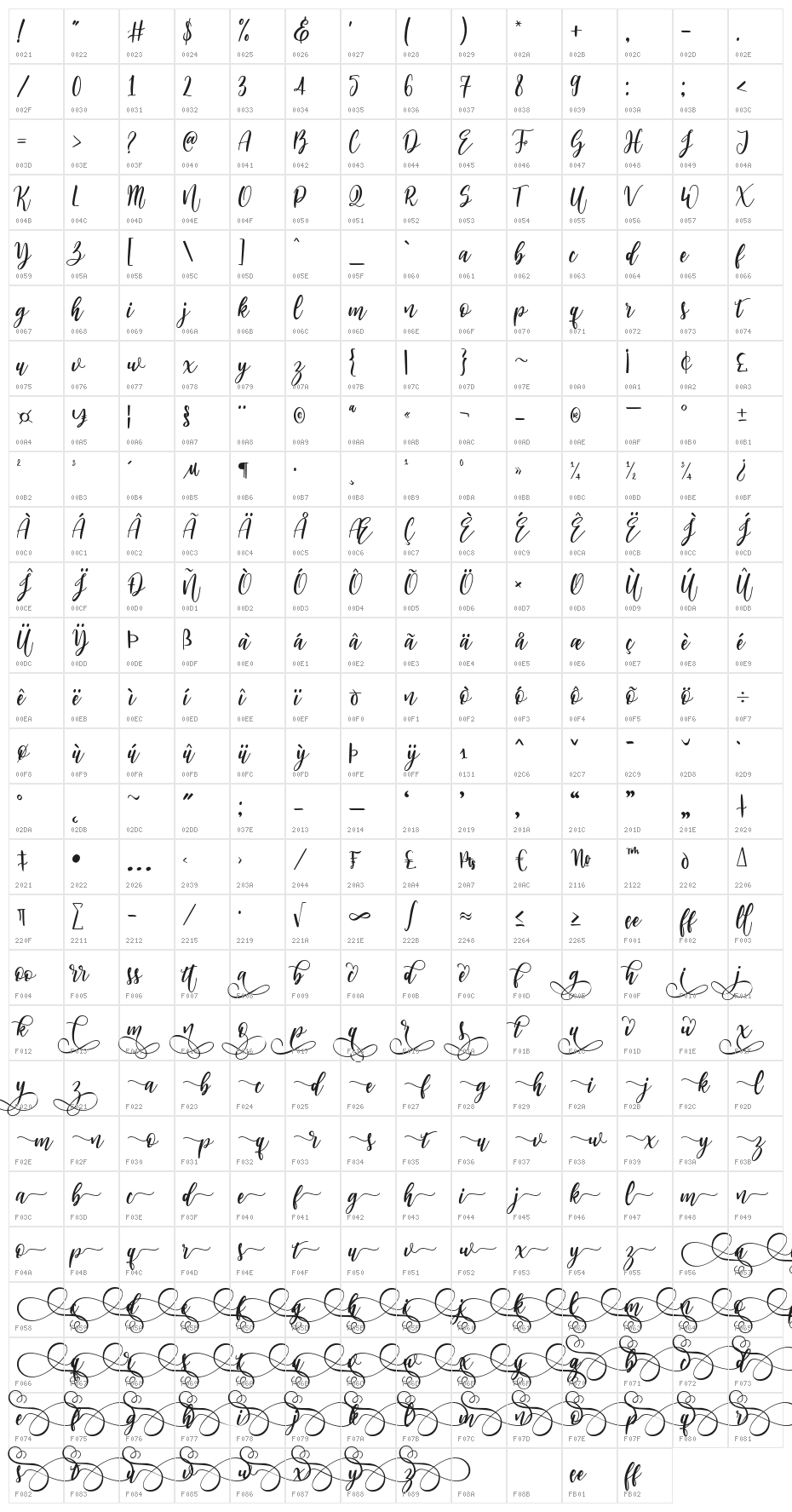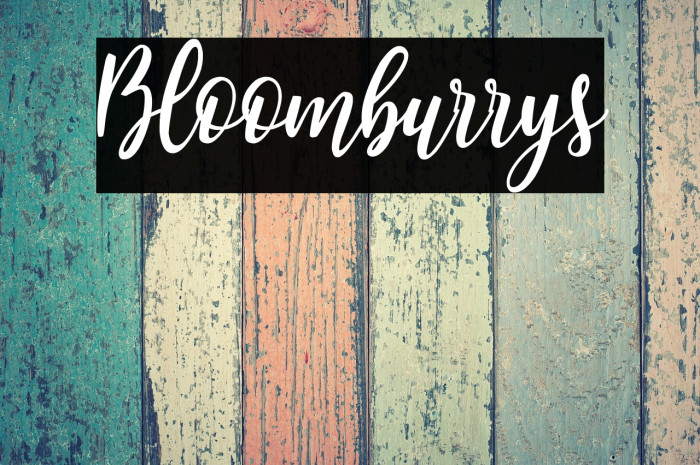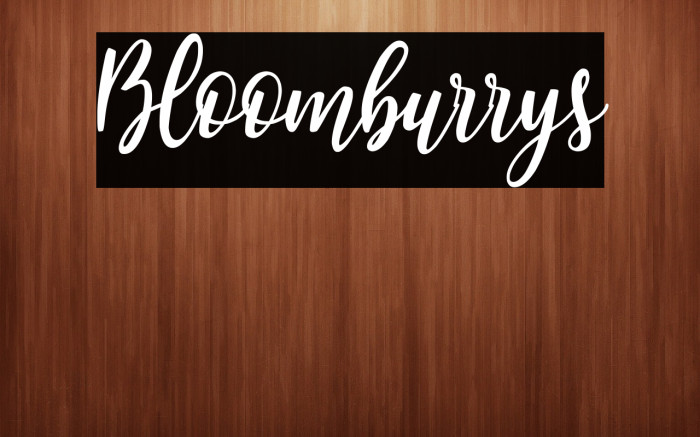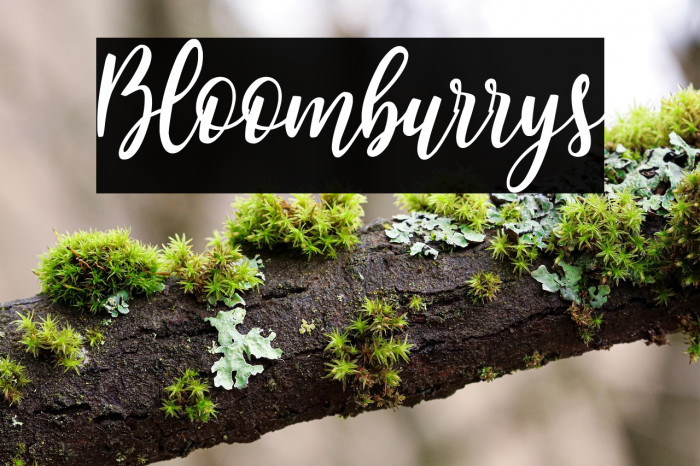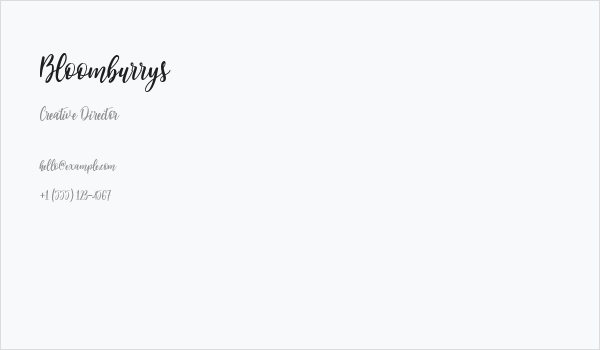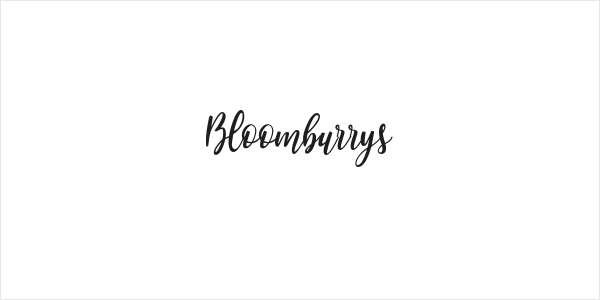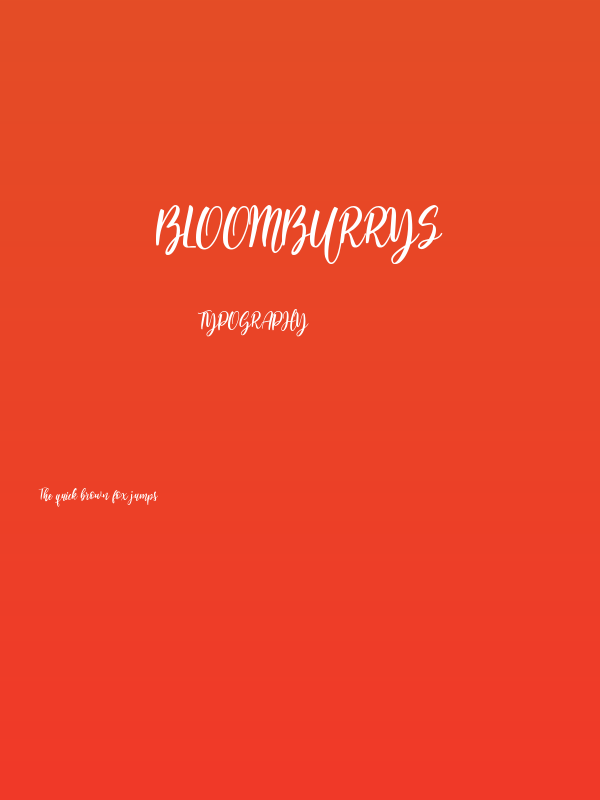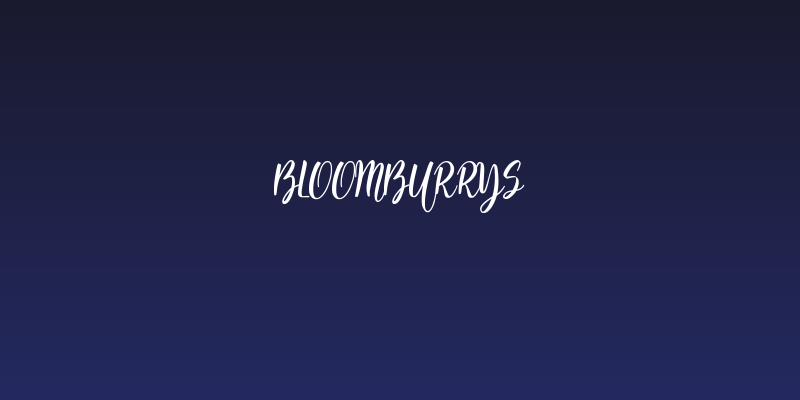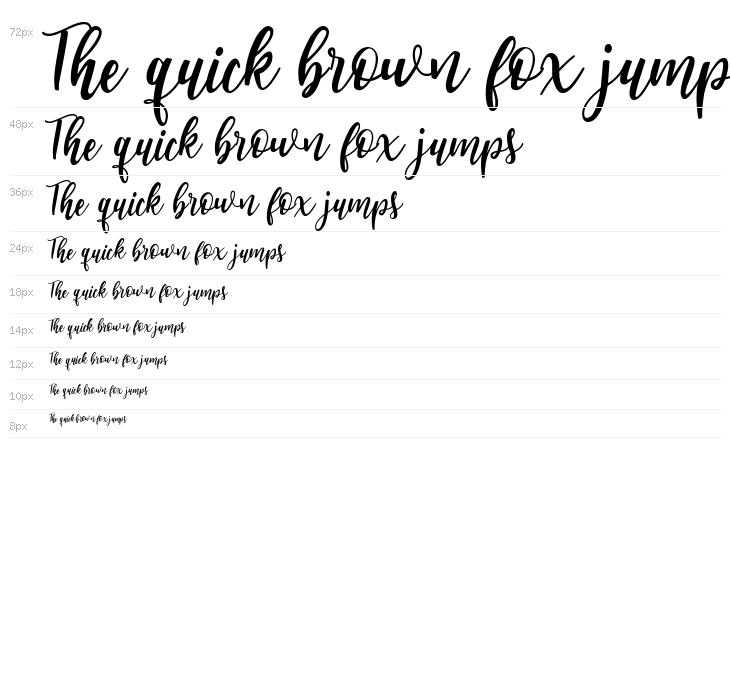
Bloomburrys Font
Bloomburrys Description
This font features a flowing, cursive style with elegant, sweeping strokes that give it a handwritten appearance. The letters are connected, creating a seamless and fluid look. The uppercase letters are bold and prominent, while the lowercase letters maintain a consistent flow, enhancing readability. The numerals and special characters are crafted with the same attention to detail, ensuring a cohesive design throughout. The overall aesthetic is both sophisticated and approachable, making it suitable for a variety of design projects.